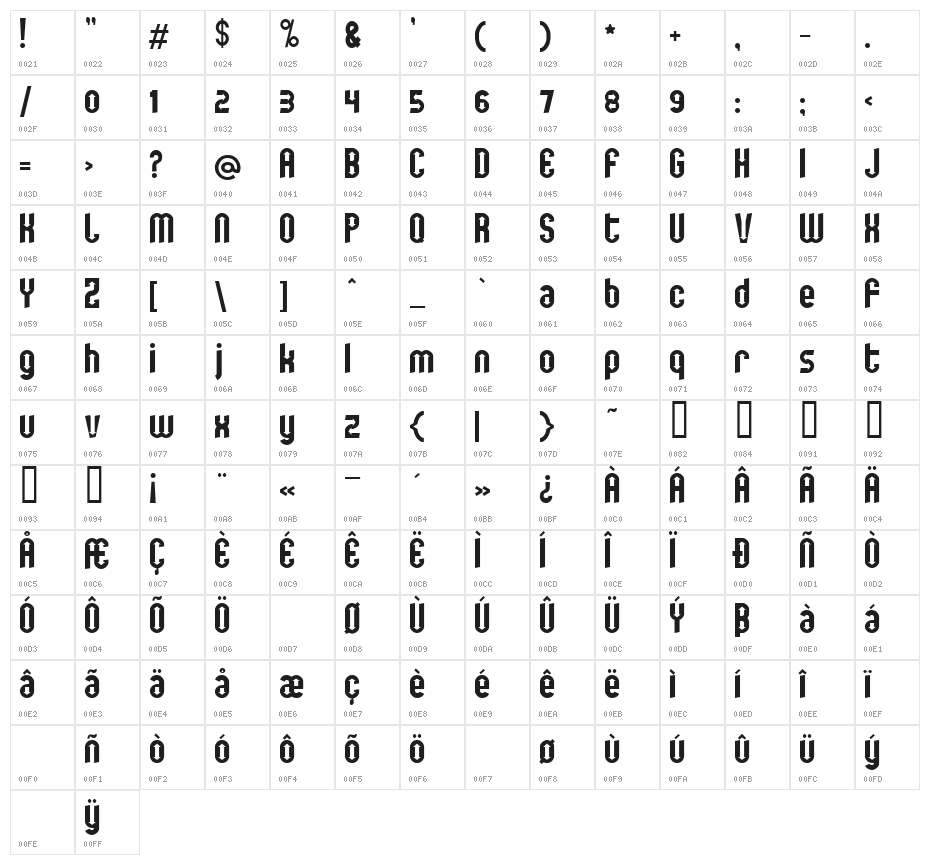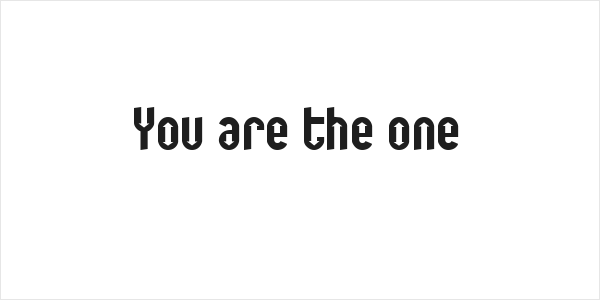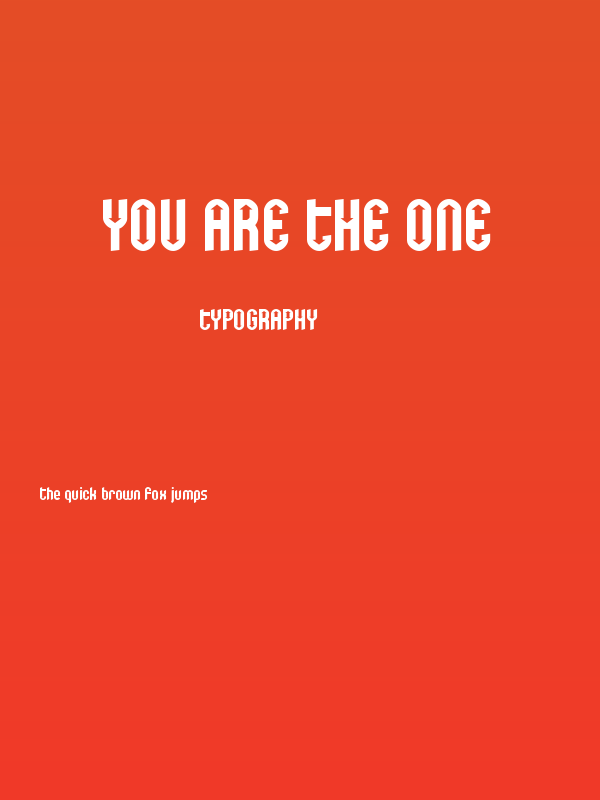
You are the one Font
You are the one Description
This font features a bold and geometric design with strong, angular lines and a distinct, modern aesthetic. The characters are constructed with a combination of thick vertical and horizontal strokes, creating a sense of solidity and strength. The uppercase and lowercase letters maintain a consistent style, with unique cutouts and sharp edges that add a decorative flair. The numerals and special characters follow the same design principles, ensuring uniformity across all glyphs. This font's striking appearance makes it suitable for attention-grabbing designs.
| Proposed Projects | Ideal for posters, logos, branding, and any project requiring a bold, modern statement. |